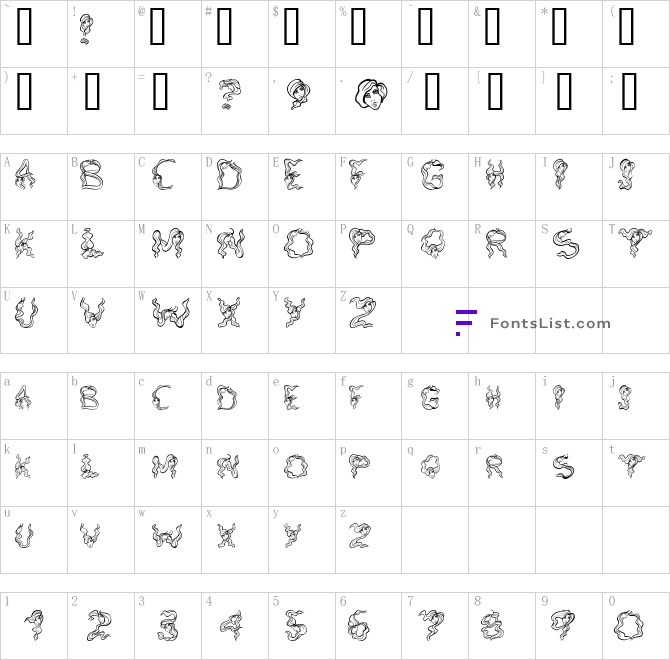
- Font Name:AlphaWomanHair
AlphaWomanHair.ttf is a very beautiful artistic font, AlphaWomanHair.ttf is widely used in the design and printing of various books and pictures,AlphaWomanHair.ttf has a strong visual impact,AlphaWomanHair.ttf is a commonly used font in newspapers, magazines and books, and is used in posters, e-commerce Poster design, store design, logo design, font design and other fields.AlphaWomanHair.